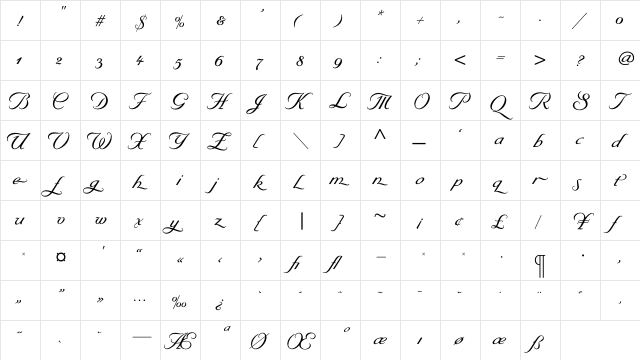
ByronMediumSwash Regular
Design Context for ByronMediumSwash Typeface
ByronMediumSwash flows with the natural rhythm of handwritten lettering, making it ideal for designs that call for warmth and personal expression.
Font Pairing: Combine ByronMediumSwash with a simple geometric sans for maximum contrast — the tension between flowing curves and clean structure is a classic typographic pairing.
Pro Tip: Pair ByronMediumSwash with a clean sans-serif for supporting text. The contrast between fluid script and geometric structure creates an elegant typographic hierarchy.